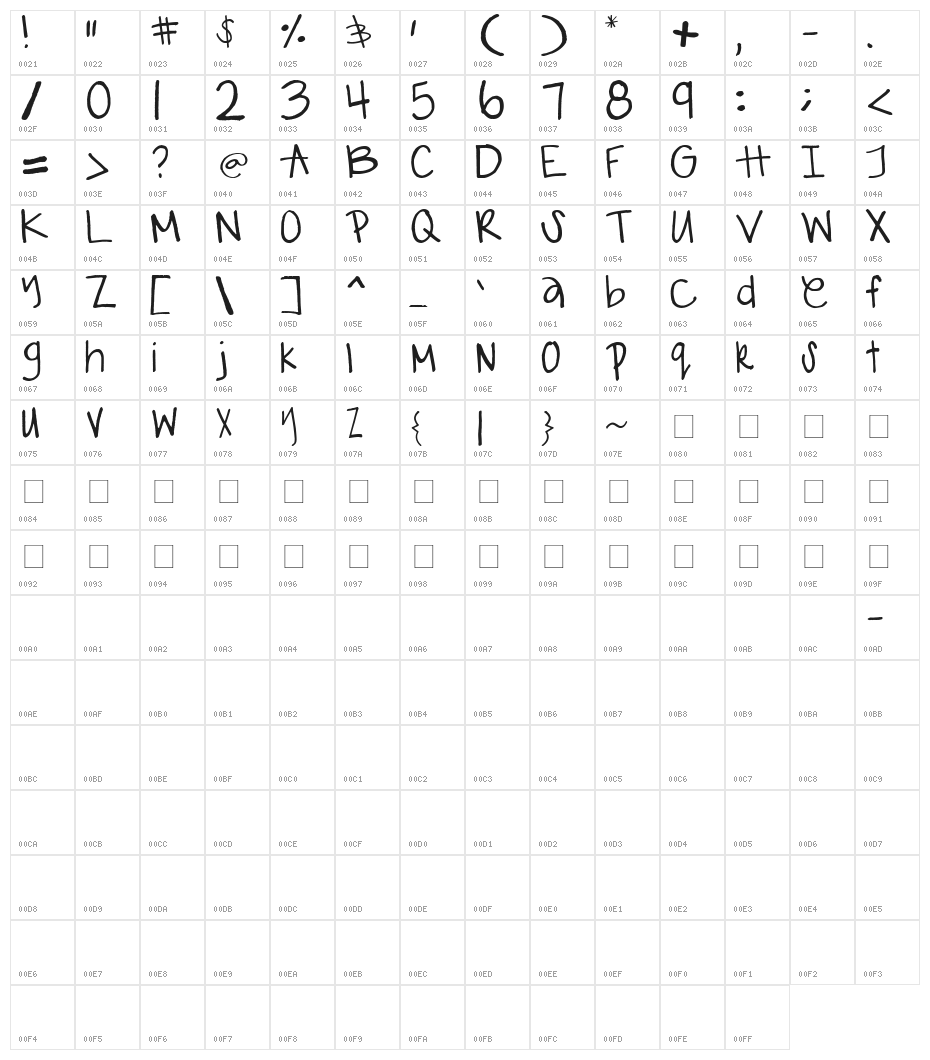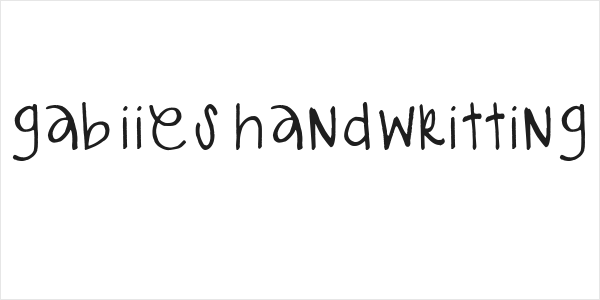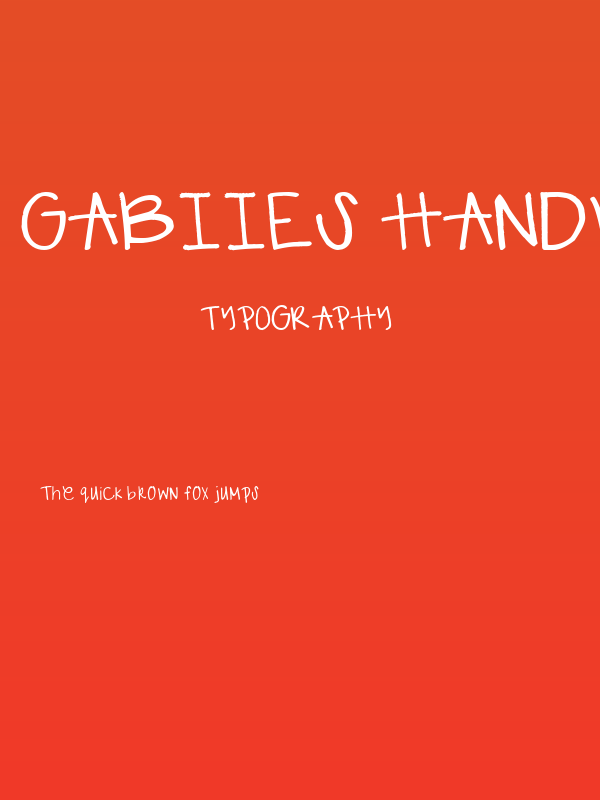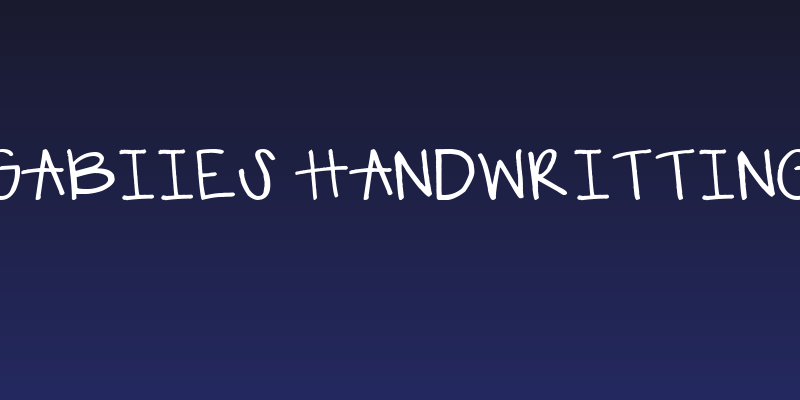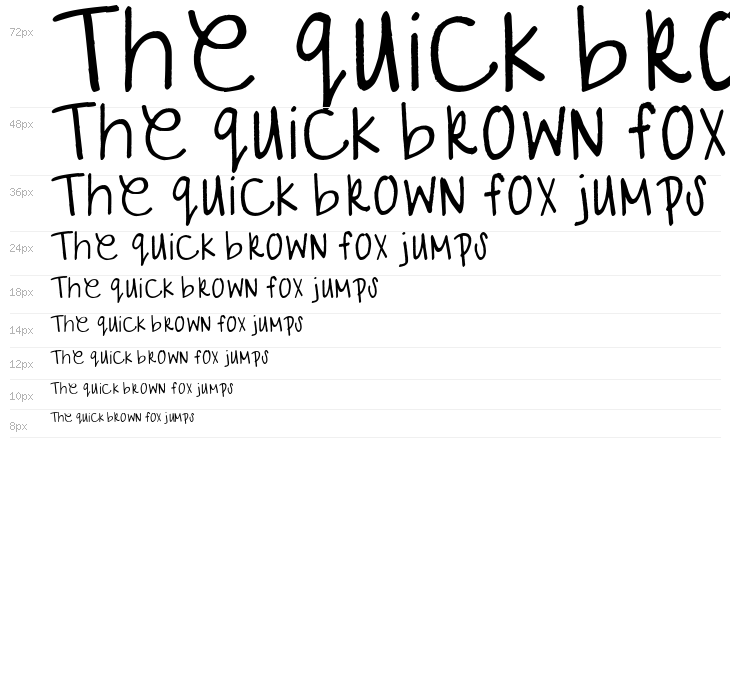
gabiies handwritting Font
gabiies handwritting Description
This font exudes a playful and casual handwritten style, characterized by its uneven strokes and slightly irregular character shapes. The letters have a natural, organic feel, reminiscent of a personal note or a casual message. The uppercase and lowercase letters maintain a consistent style, with a slight tilt and varying stroke thickness that adds to its charm. The numbers and special characters follow the same informal aesthetic, making the font versatile for various creative applications. Its overall appearance is approachable and friendly, making it ideal for projects that require a personal touch.
| Use Case | Headlines, Logos, Informal text |
| Proposed Projects | Ideal for greeting cards, personal notes, casual invitations, and playful branding. |